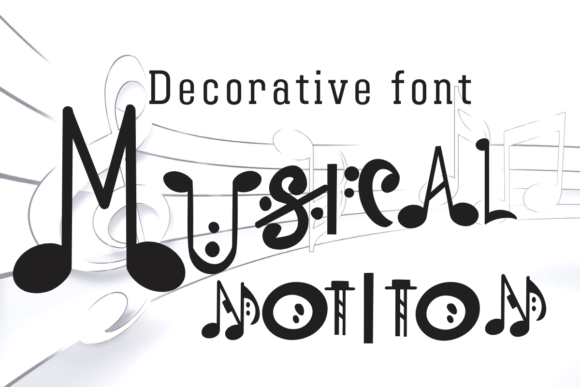
How Musical Notation Boosted My Bakery’s Brand Identity
Running a small bakery has always been about more than just baking great bread and pastries. It's about creating an experience that customers remember, from the first time they see your logo to the moment they take their first bite. A few months ago, I realized that one of the most overlooked elements of my brand was the typography I used across all my materials. That’s when I discovered Musical Notation, a font that not only looked beautiful but also helped me build a more consistent and recognizable brand.
The Moment I Needed a Font Upgrade
I was preparing new packaging for my signature sourdough loaves when I noticed something: my current font felt generic, almost invisible against the warm brown of the paper. It didn’t reflect the charm and creativity of my products. I needed something that would stand out, something that could convey both elegance and warmth. That’s when I stumbled upon Musical Notation.
This font is a lovely and cute decorative typeface with a playful yet sophisticated feel. Its notes and musical symbols add a unique personality, making it perfect for adding a touch of artistry to everyday designs. What really caught my eye was how it could blend into both modern and vintage aesthetics, offering versatility without sacrificing style.
Using Musical Notation in Real Business Scenarios
Since then, I’ve used Musical Notation in several key areas of my business:
- Packaging design: I now use it on my bakery boxes and tags, where it adds a charming visual element that complements the rustic feel of the product.
- Logo design: The font works beautifully as part of a logo, especially when paired with a clean sans serif font for balance.
- Social media graphics: Whether it’s for Instagram posts or Facebook banners, Musical Notation helps create eye-catching visuals that align with my brand’s aesthetic.
- Thank-you cards: I use it for handwritten-style notes, giving them a personal and artistic touch that feels genuine.
- Menu design: On my café menu, it adds a decorative flair while remaining readable and professional.
What I love most about Musical Notation is its adaptability. It’s not just for headlines or logos—it can be used for short phrases, titles, or even as a decorative accent in various design projects. This flexibility makes it a valuable asset for any small business looking to elevate their visuals without overcomplicating things.
Why Typography Matters for Small Businesses
Typography isn’t just about making text look good—it’s about shaping perception. When you choose the right font, you’re sending a message about your brand’s personality, values, and professionalism. Musical Notation does this effortlessly. It brings a sense of creativity and care to every design, helping customers feel connected to the brand on a deeper level.
For instance, using Musical Notation on my product labels gives them a handcrafted, artisanal feel that aligns with the quality of my goods. It also helps differentiate my brand from competitors who might be using more standard fonts. In today’s market, where first impressions matter so much, having a unique and memorable typeface can make all the difference.
Readability and Practicality
Of course, no matter how beautiful a font is, it has to be readable. Musical Notation strikes the perfect balance between style and legibility. It works well on both digital and print formats, whether it’s a social media thumbnail or a printed menu. I’ve found that it’s especially effective when used in combination with a clean sans serif font for supporting text, ensuring that the overall design remains clear and easy to read.
When using Musical Notation on small labels or mobile screens, I recommend using larger text sizes to maintain readability. For printed packaging, testing the font at different sizes and distances ensures that it looks great in real-world conditions. These small adjustments help maximize the font’s impact without compromising clarity.
Font Pairing Ideas
If you’re looking to pair Musical Notation with other fonts, here are a few ideas to consider:
- Clean sans serif: A modern, minimalist sans serif like Montserrat or Lato pairs well with Musical Notation for a balanced look.
- Elegant serif: A classic serif font like Playfair Display adds sophistication when used alongside Musical Notation.
- Script font: For a more elegant or romantic feel, pairing Musical Notation with a script font like Great Vibes can create a stylish contrast.
- Handwritten font: If you want a more personal and creative vibe, combining Musical Notation with a handwritten font like Great Vibes or Pacifico can add character.
These pairings allow you to experiment with different styles while keeping your brand identity cohesive and visually appealing.
Final Thoughts on Using Musical Notation
Choosing the right font is a small decision that can have a big impact on your brand. Musical Notation has helped me create a more consistent, polished, and memorable brand identity for my bakery. It’s not just a font—it’s a tool for storytelling, connection, and visual consistency.
Whether you’re designing packaging, social media graphics, or business cards, Musical Notation offers a versatile and stylish solution that can elevate your brand in meaningful ways. It’s a font that speaks to both the heart and the eye—perfect for small businesses that want to stand out in a crowded market.